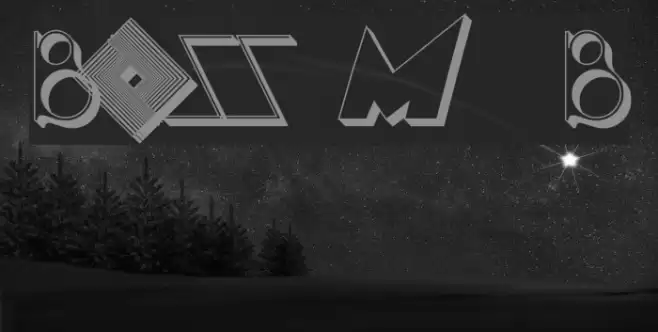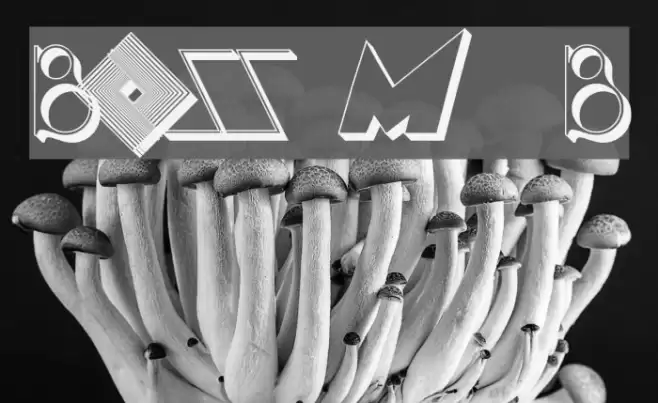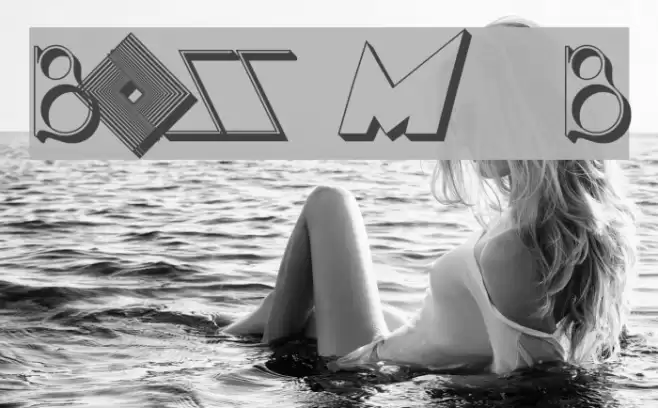
BOSS M B Font
BOSS M B Description
This font is a bold and striking display typeface with a highly decorative and geometric style. Each character is uniquely designed with intricate patterns and sharp angles, creating a sense of movement and energy. The letters are composed of various shapes, including triangles, circles, and lines, which are layered to form a complex and visually engaging appearance. The font's design is reminiscent of modern art and architecture, making it ideal for projects that require a contemporary and artistic touch. Its boldness and complexity make it unsuitable for body text but perfect for headlines, posters, and branding that aim to capture attention and convey a sense of modernity and creativity.
A bold, geometric, and decorative display font with intricate patterns from Decorative fonts.
- Proposed Projects: Ideal for modern art posters, creative branding, eye-catching headlines, and unique logo designs.